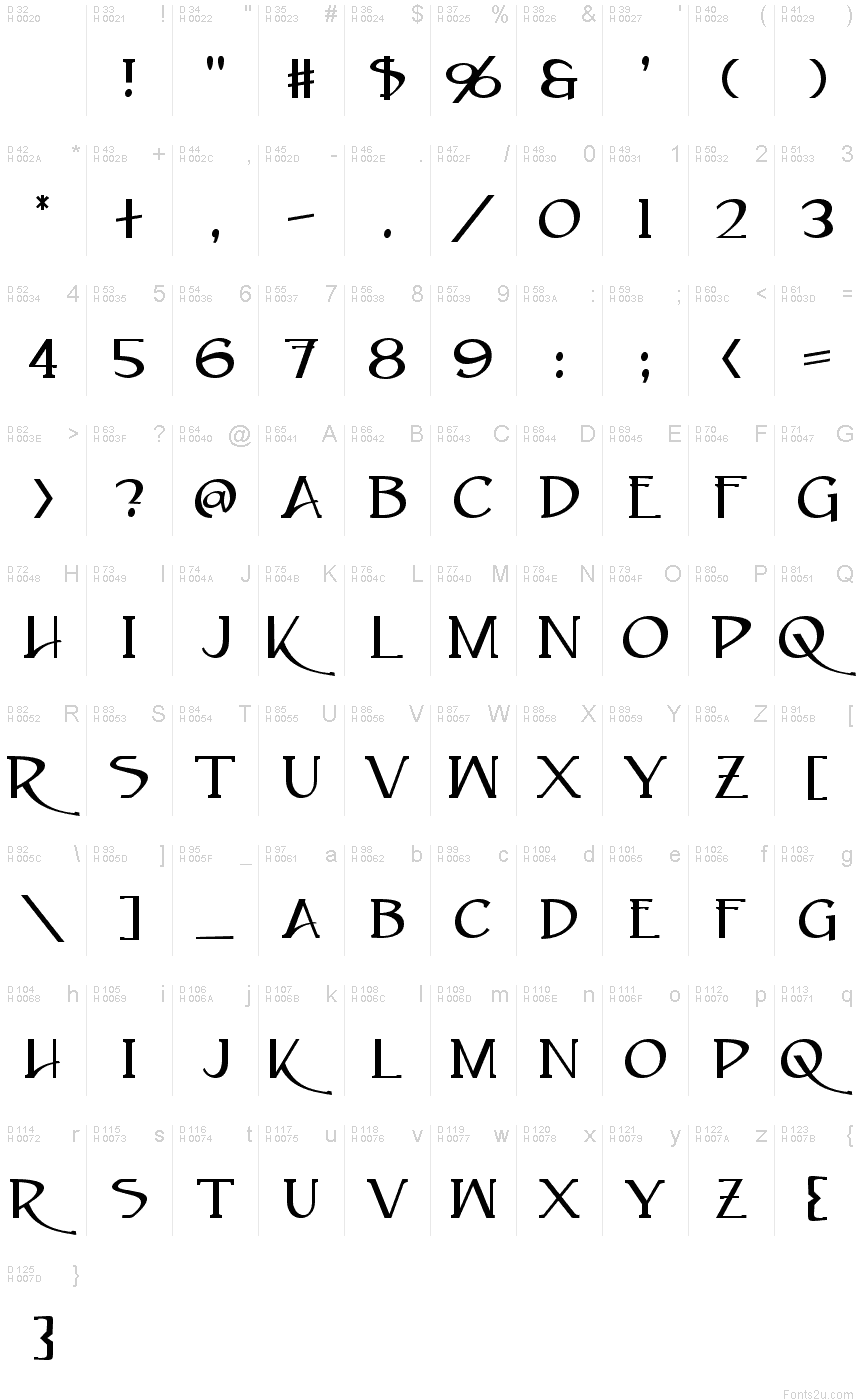
Caeldera
Caeldera font by Nate Piekos is a free retro display typeface that feels like it’s been pulled from the pages of an old spellbook or pulp adventure cover. Its tall, narrow letters, sharp curves, and sweeping tails have a hand-inked quality—elegant, but with a slightly dangerous edge. The rhythm is dramatic and theatrical, so a single word in Caeldera can carry a whole mood by itself.
Using Caeldera, headlines instantly gain a storybook or occult flair that works beautifully for fantasy book covers, game titles, film posters, themed event branding, and gothic-inspired packaging. This free font shines when you give it space to breathe and let those long strokes stretch out. Pair Caeldera with a simple, modern sans serif in smaller text to keep layouts readable while letting the ornate letterforms steal the spotlight.